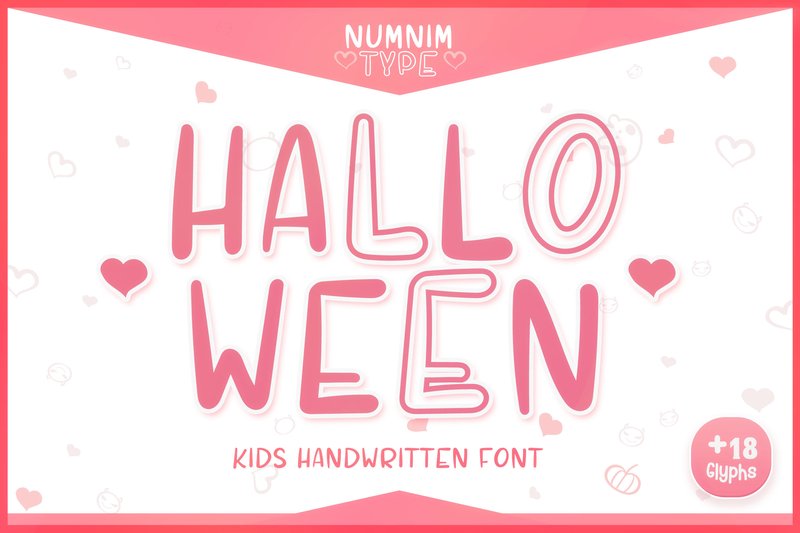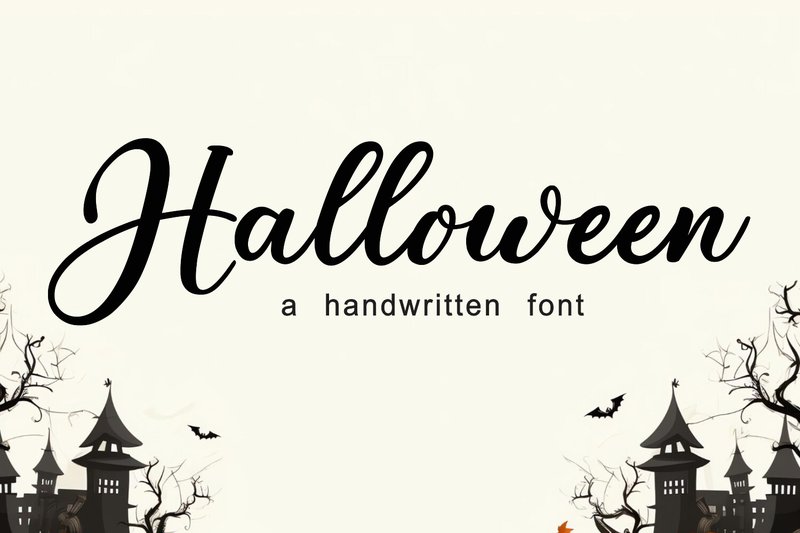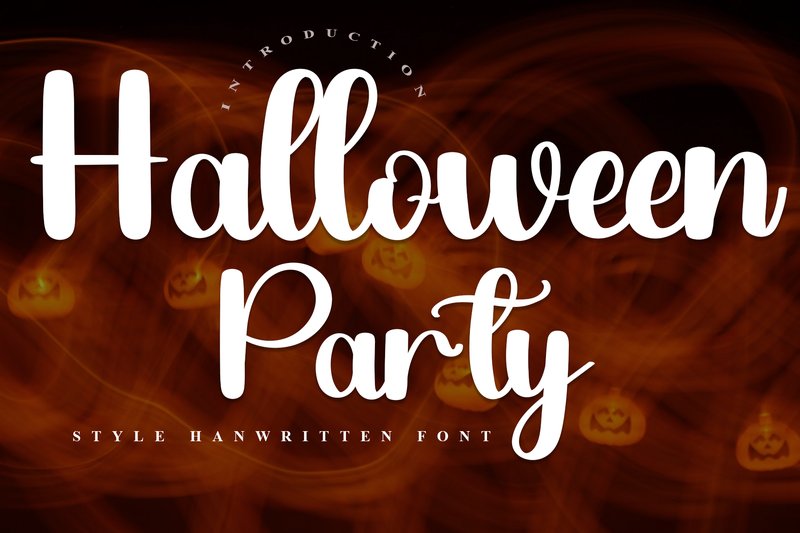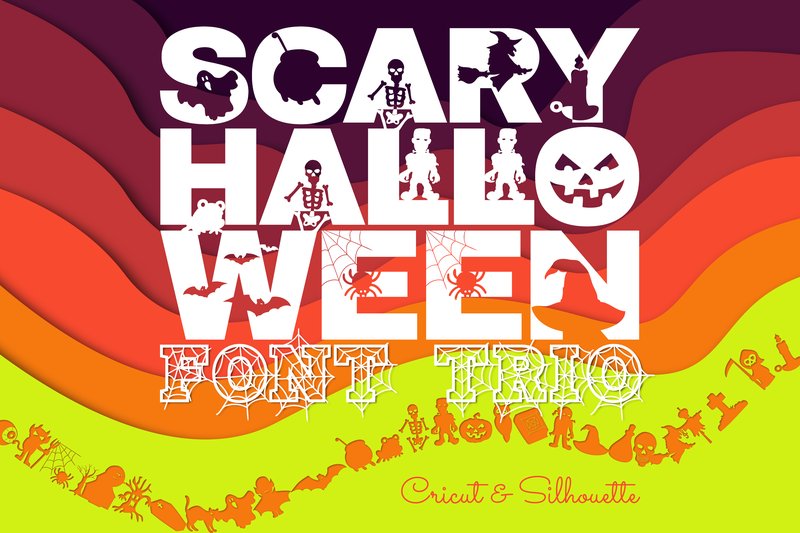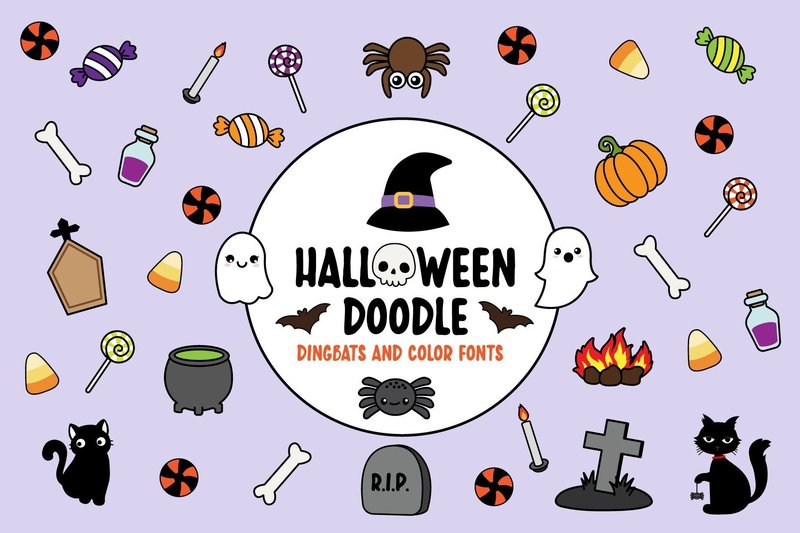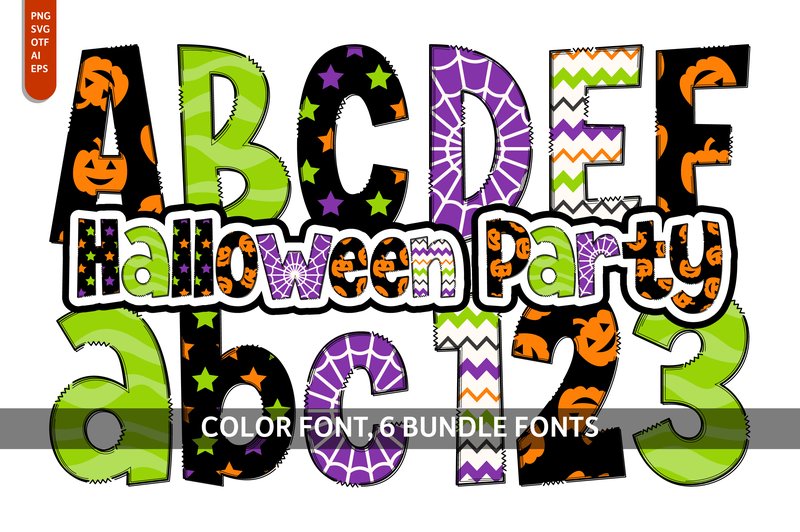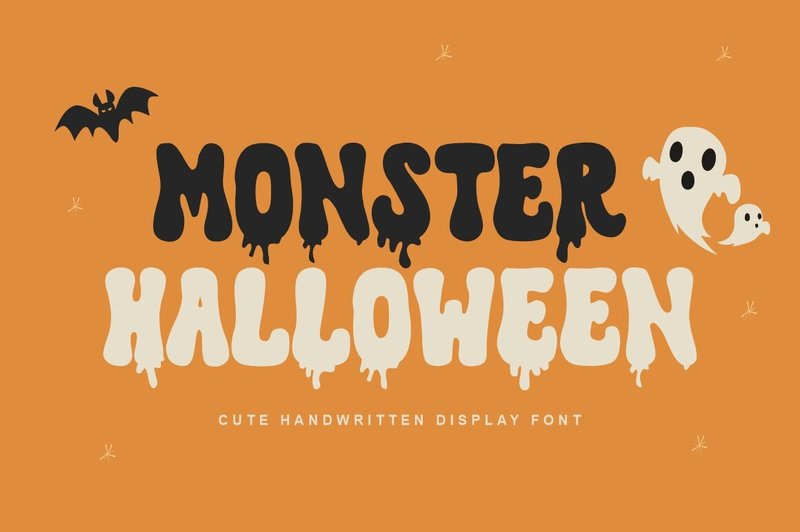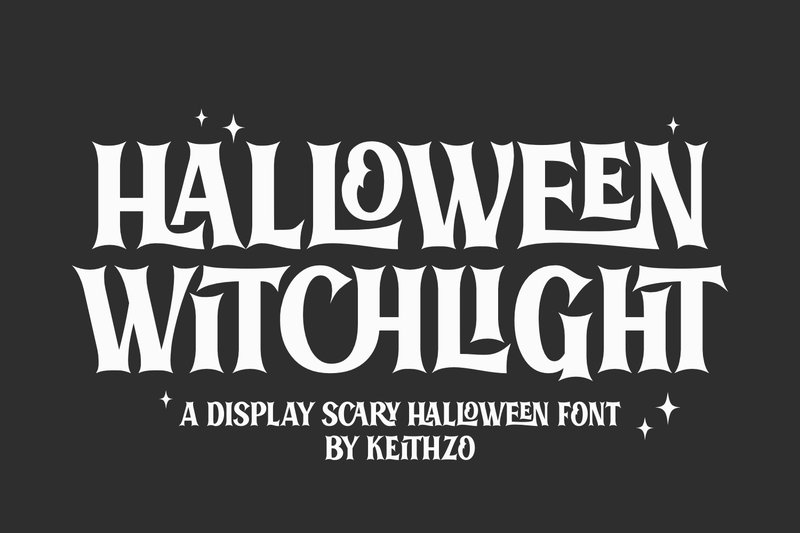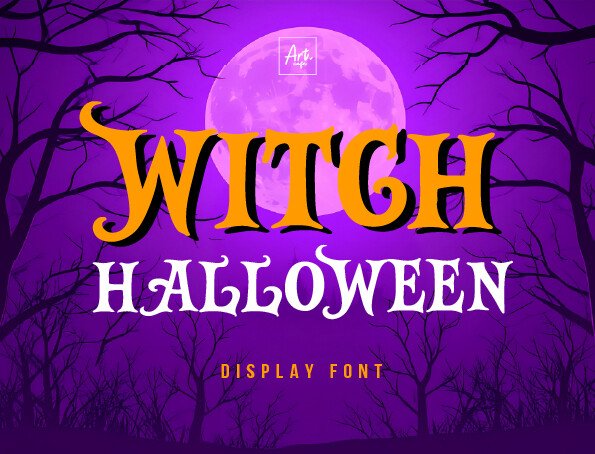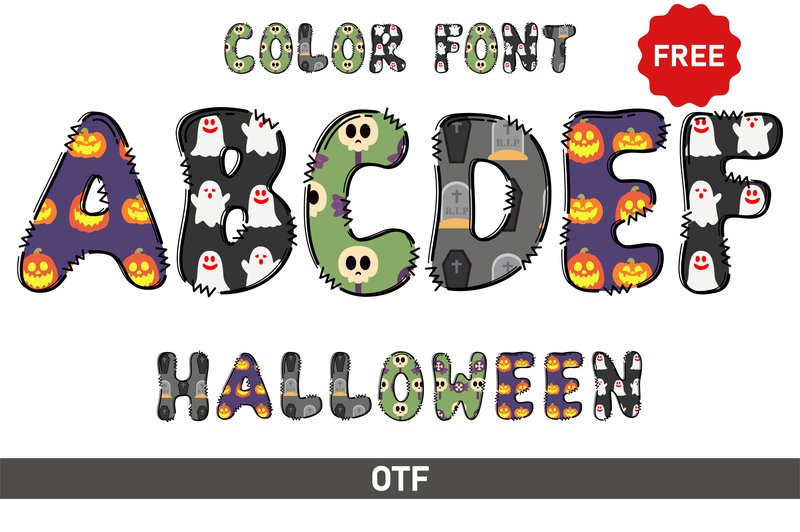
By 2026, trend data projects a 45% surge in consumer engagement with brands that abandon generic seasonal assets for more artisanal, gothic-inspired aesthetics. This cultural shift moves beyond jump-scares, demanding typography that evokes a sense of sophisticated dread and nostalgic horror. Generic, cartoonish fonts no longer cut it for audiences craving immersive brand experiences. That’s why we’ve gone beyond the typical slime and gore, curating these 23 Halloween fonts for their stylistic range—from eerie serifs to hand-drawn scripts. Each selection is vetted for commercial usability, ensuring your seasonal projects captivate without sacrificing professional polish and saving you hours of searching.
1. Halloween (by numnim)
Halloween (by numnim) feels less like a typeface and more like the effortless, cool scrawl of a modern-day sorcerer jotting down notes in their grimoire. Eschewing the jagged edges of traditional horror fonts, this one leans into a smooth, calligraphic flow that is both friendly and refreshingly stylish. Its clean lines and subtle imperfections give it an authentic, handcrafted personality, making it a perfect choice for projects that aim for an approachable, on-trend spookiness rather than outright fright.
- Smooth, organic letterforms with a consistent handwritten feel
- Clean and highly legible character set suitable for various sizes
- A friendly and approachable style with a modern, cool vibe
- Includes standard uppercase, lowercase, and essential punctuation
- Chic Halloween party invitations and event branding
- Seasonal social media graphics and quote overlays
- Product packaging for autumn treats and boutique goods
- Website headers and promotional banners for fall campaigns
2. Halloween (by Lisna.Craft)
Halloween (by Lisna.Craft) is a playfully spooky script font that strikes the perfect balance between eerie elegance and charming fun. Its handcrafted letterforms dance with a lighthearted energy, making it a standout choice for projects that need a touch of Halloween magic without being overtly terrifying. The font’s smooth, flowing lines and subtle quirks give it a friendly, approachable vibe that feels both modern and festive, making it an incredibly versatile addition to any designer’s seasonal toolkit.
- A fluid, script-style typeface with a distinctively festive character.
- Combines spooky undertones with a cute and approachable aesthetic.
- Clean, well-defined letterforms that ensure readability in headlines and titles.
- Includes a full set of characters for comprehensive design projects.
- Creating whimsical invitations for Halloween parties and events.
- Designing eye-catching social media graphics and promotional banners.
- Branding for seasonal products, from candy packaging to spooky merchandise.
- Crafting festive signage and decor for a friendly, fun atmosphere.
3. Halloween Party (by Inermedia STUDIO)
Halloween Party (by Inermedia STUDIO) has officially retired the expectation that spooky season fonts must be exclusively dark and menacing. This typeface swaps pure horror for a burst of festive, celebratory energy, bringing a lighthearted and enchanting spirit to the Halloween aesthetic. Its whimsical letterforms and decorative flourishes feel less like a creature feature and more like a charming neighborhood costume parade. With a cheerful and almost nostalgic ambiance, Halloween Party is the perfect choice for designs that aim to be more magical than monstrous, making it a standout for current, family-friendly seasonal campaigns.
- A whimsical and merry character set with playful, decorative elements.
- A smooth, rounded style that creates a friendly and approachable feel.
- An enchanting and festive vibe suitable for celebratory designs.
- Invitations for costume parties, fall festivals, and trick-or-treat events.
- Seasonal branding for candy packaging, product tags, and in-store displays.
- Cheerful social media graphics, greeting cards, and website banners.
- DIY craft projects, including custom treat bags and spooky home decor quotes.
4. Scary Halloween Trio (by WADLEN)
Scary Halloween Trio (by WADLEN) is a testament to the studio’s talent for blending playful aesthetics with seasonal fun. Don’t let the name fool you; this collection leans more charming than chilling, offering a trio of fonts that feel fresh, friendly, and perfectly suited for modern Halloween campaigns. By bundling a serif, sans serif, and a delightful set of dingbats, WADLEN has created a versatile toolkit that prioritizes a “lovely touch” over genuine fright, making it an ideal choice for projects targeting families, children, or anyone looking to celebrate the holiday with a warm, cartoonish smile.
- A comprehensive package featuring three distinct fonts: a sturdy serif, a clean sans serif, and a bonus dingbat font.
- The letterforms possess a soft, slightly irregular quality that gives them an approachable, hand-crafted feel.
- Includes a full set of spooky-cute dingbat illustrations like ghosts, pumpkins, and bats to enhance designs.
- Designed for clarity, ensuring legibility across both digital and print applications.
- Designing invitations and decor for children’s Halloween parties and school events.
- Creating friendly branding and packaging for seasonal sweets, toys, and other products.